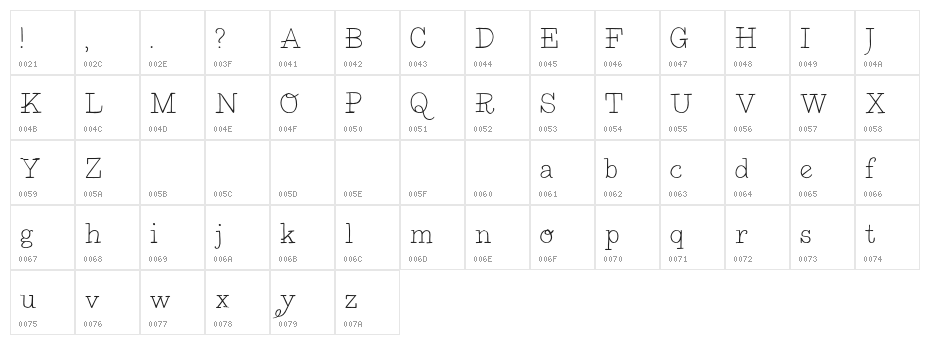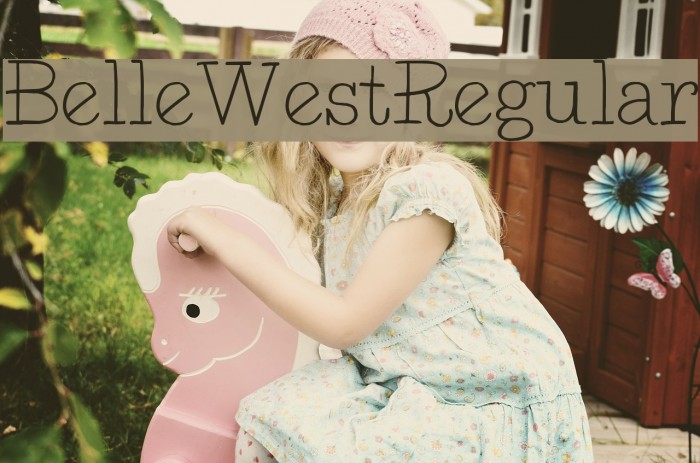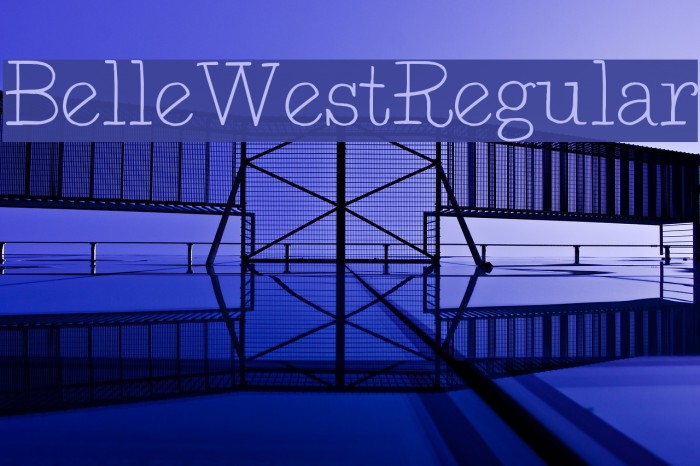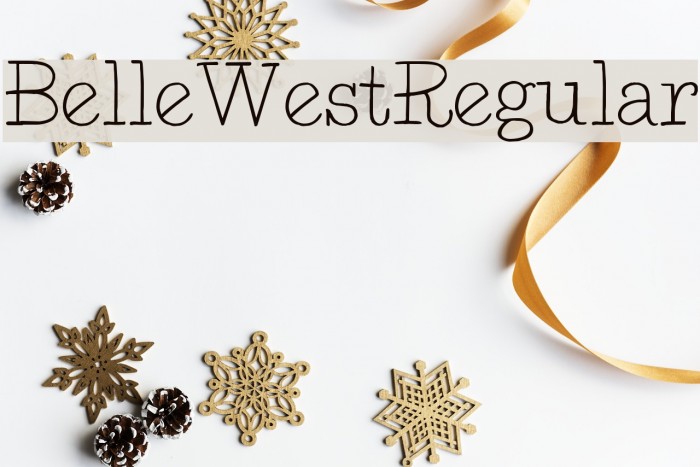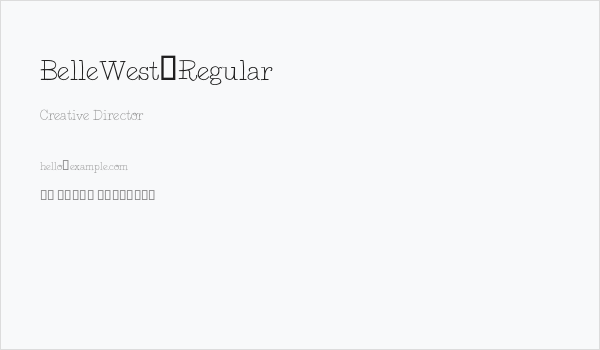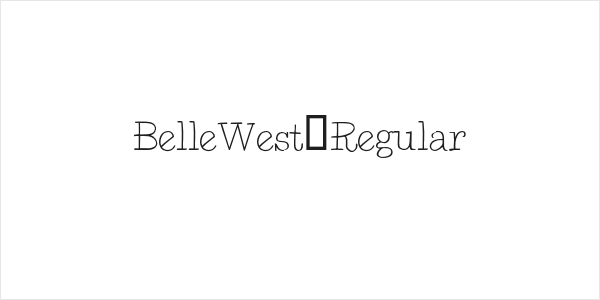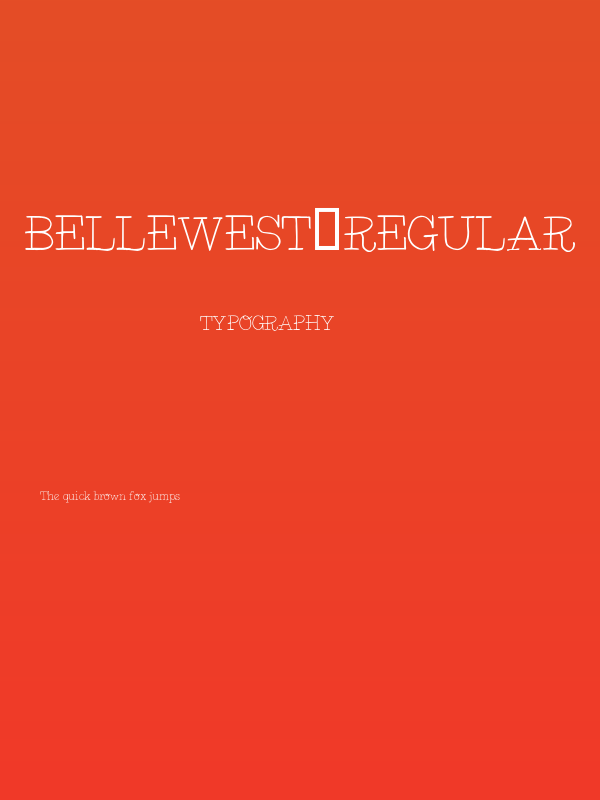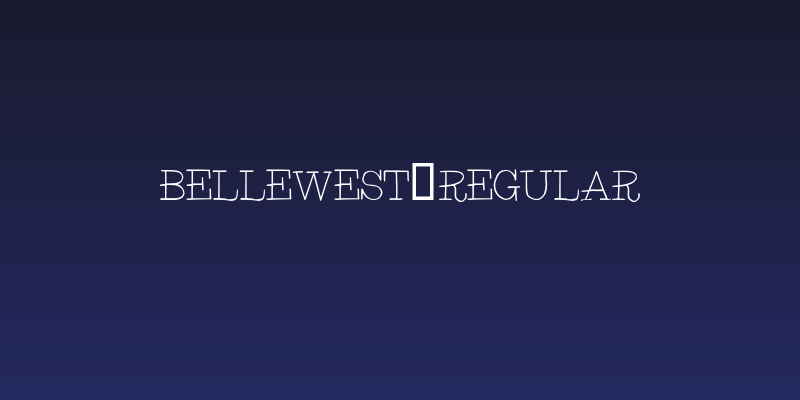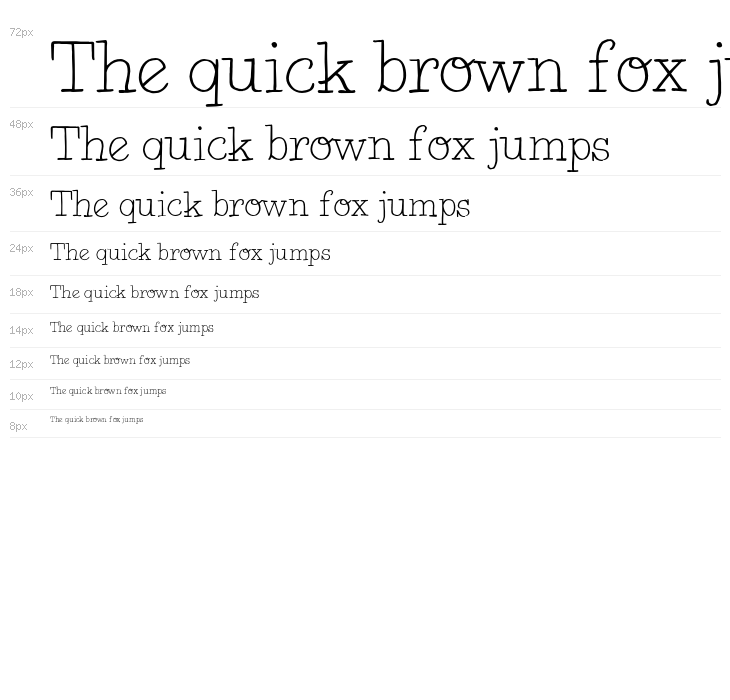
BelleWest-Regular Font
BelleWest-Regular Description
This font features a unique blend of classic and modern elements, characterized by its thin, elegant lines and subtle serifs. The uppercase letters are tall and slightly condensed, giving a sophisticated and refined appearance. The lowercase letters maintain a consistent style, with a slight curl on certain characters like 'g' and 'y', adding a touch of playfulness. The numerals are clear and straightforward, ensuring readability. The overall design is clean and minimalistic, making it versatile for various applications. The special characters are well-integrated, maintaining the font's cohesive look.